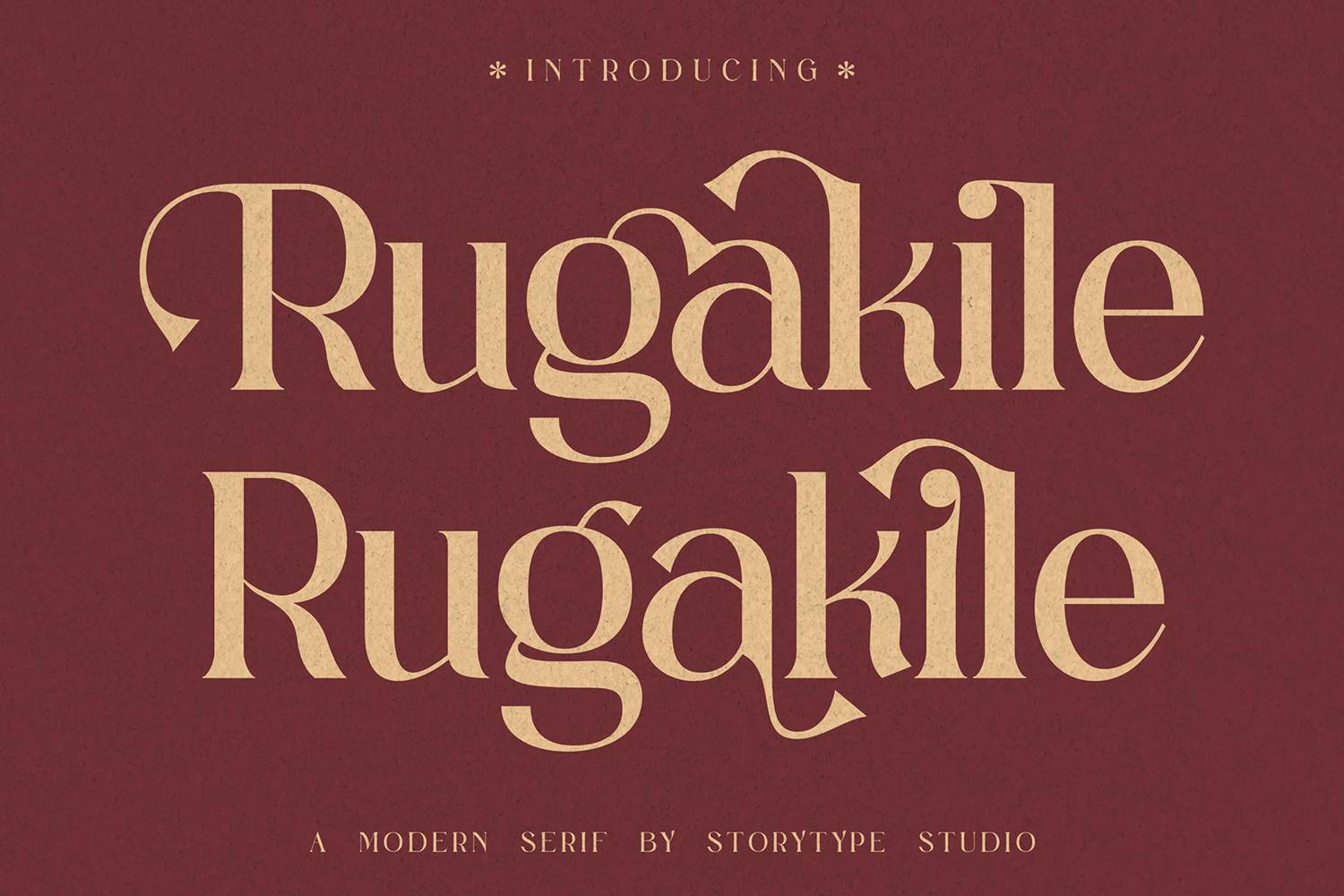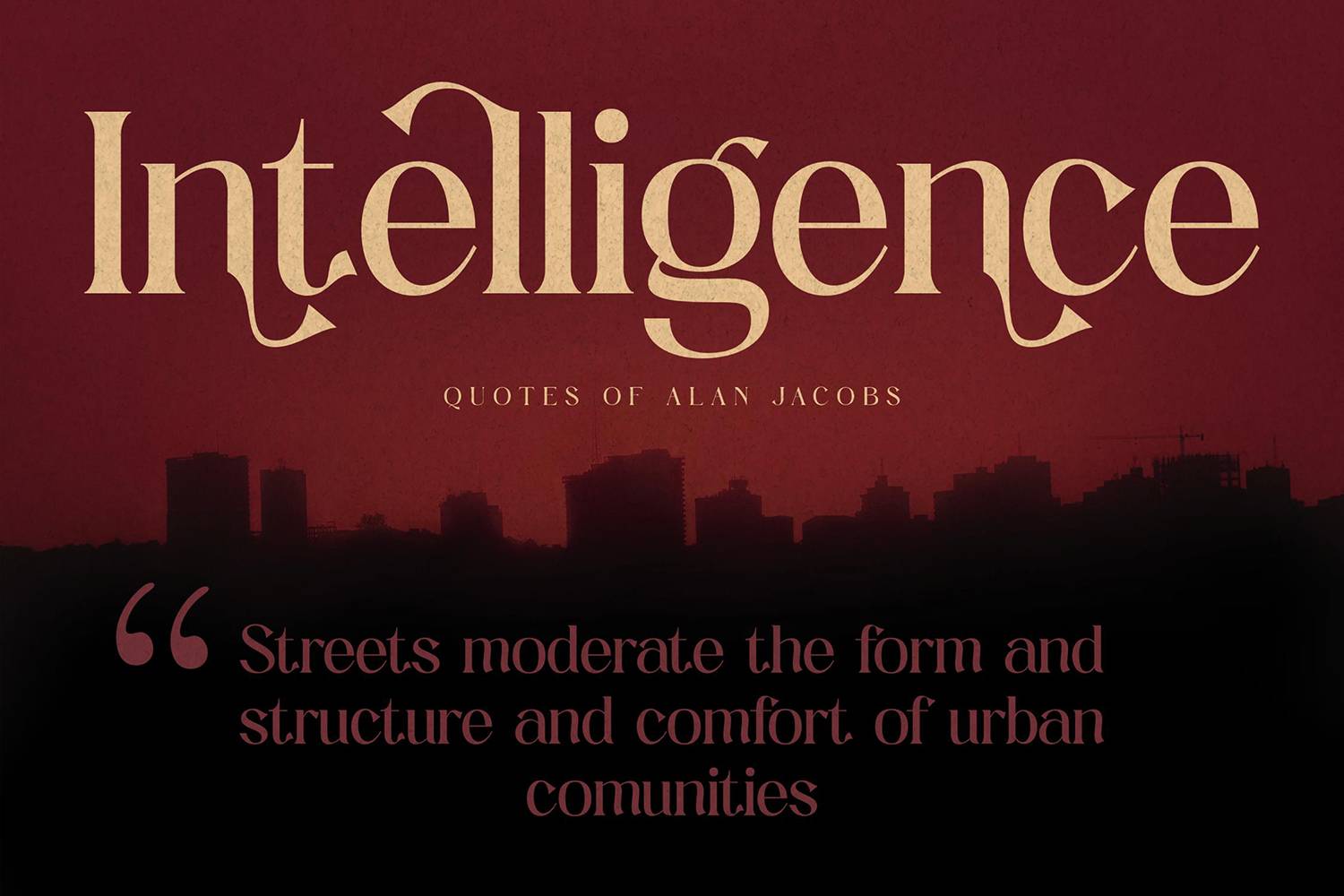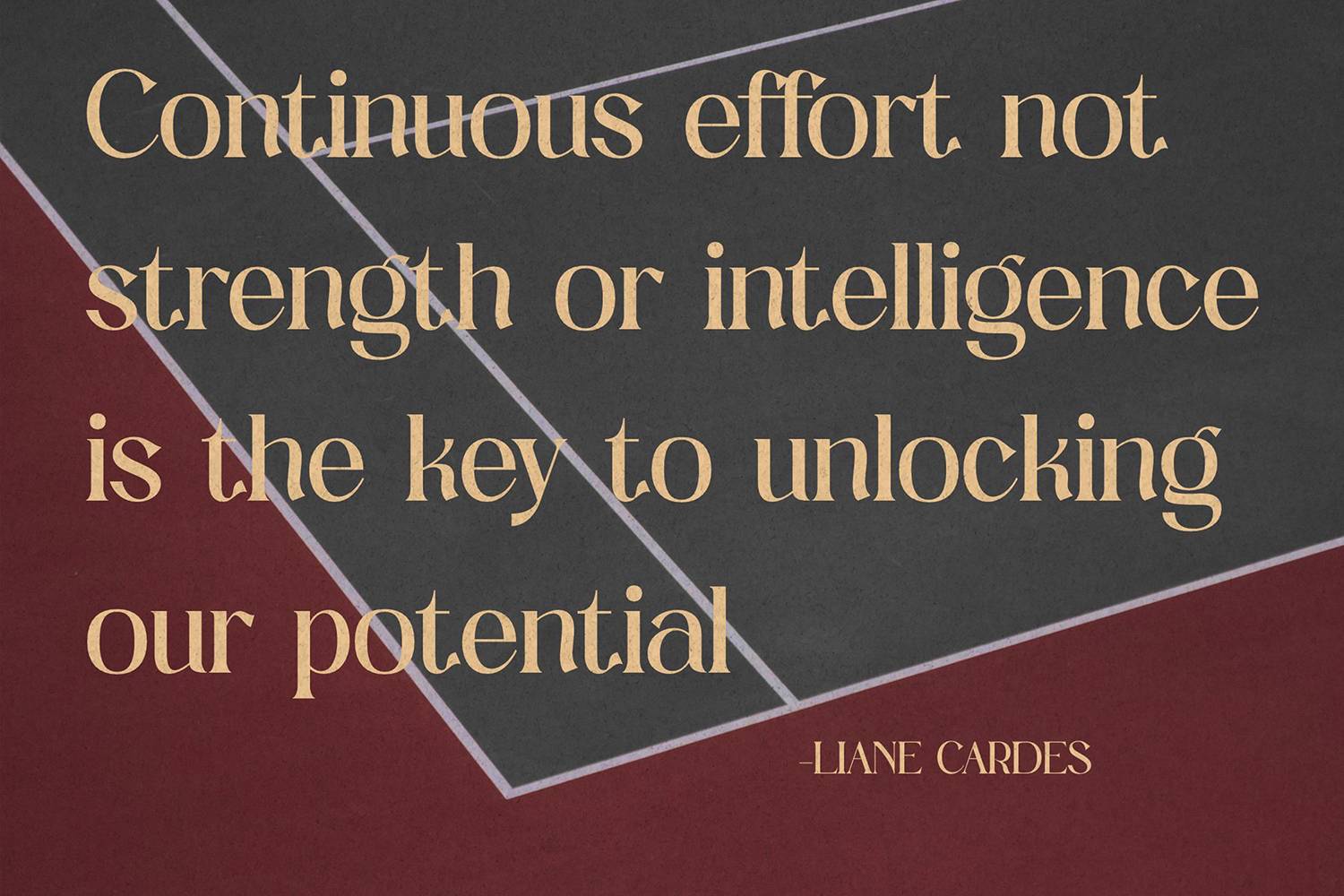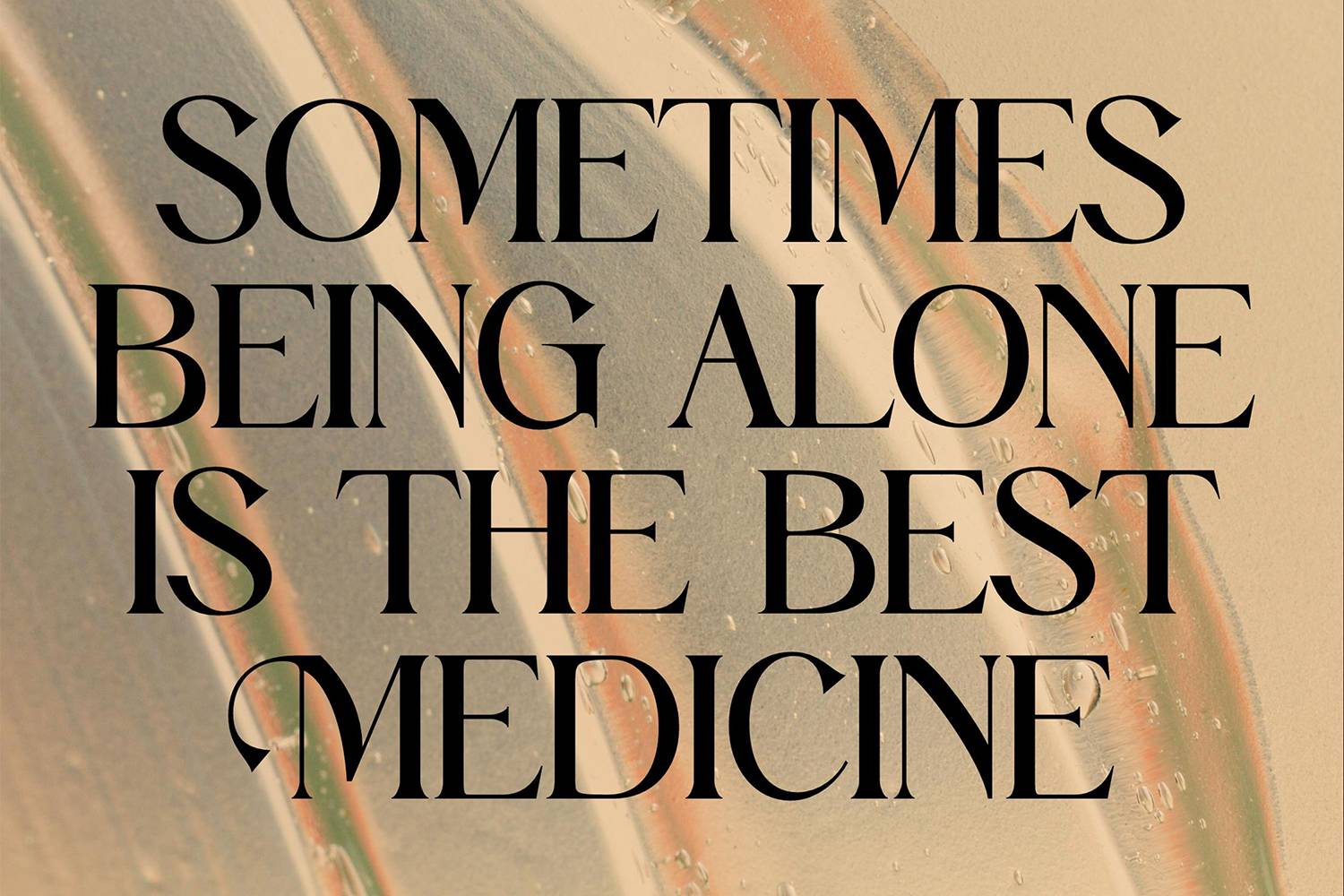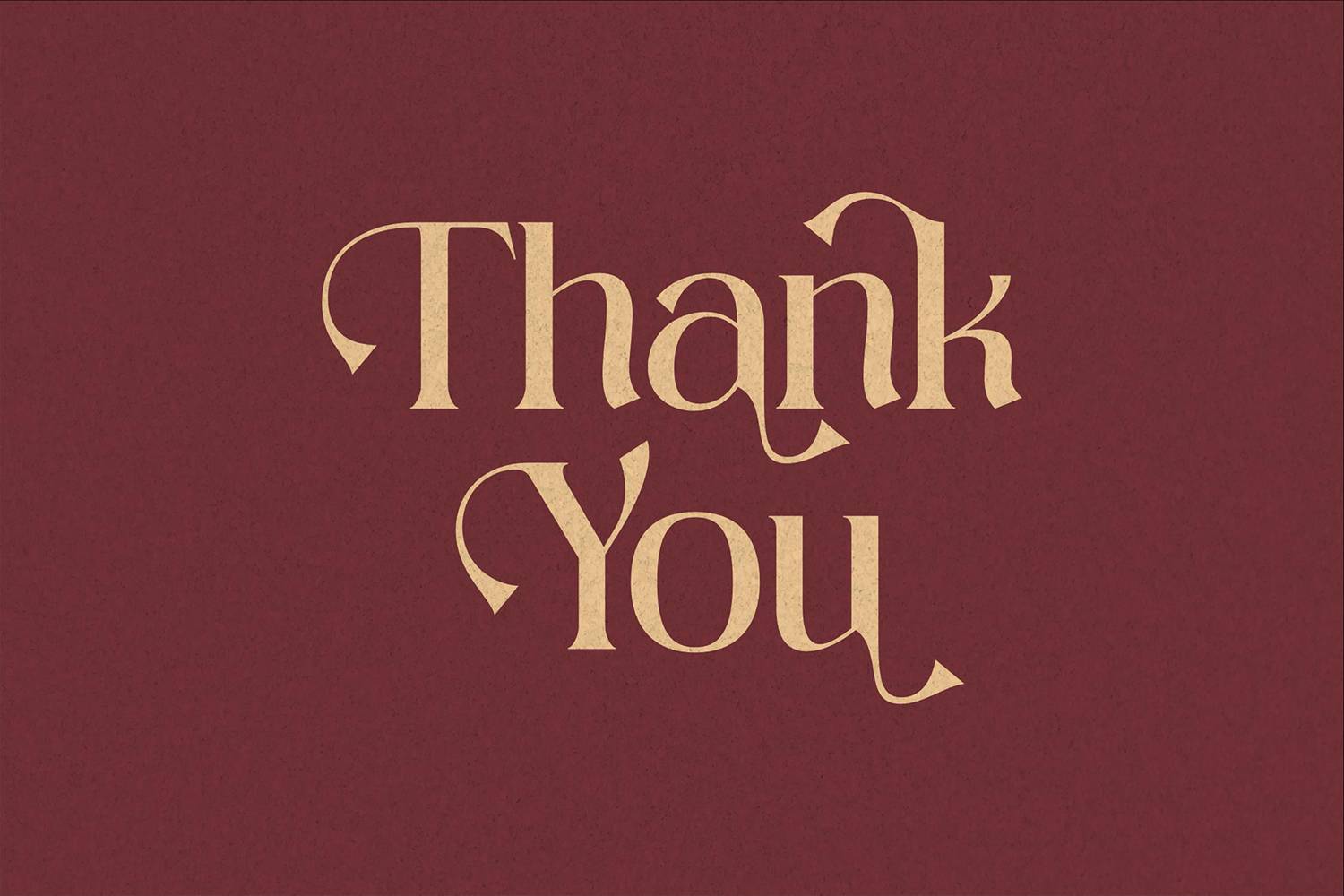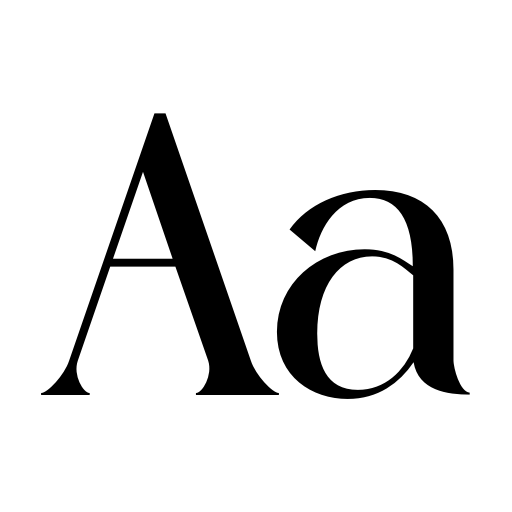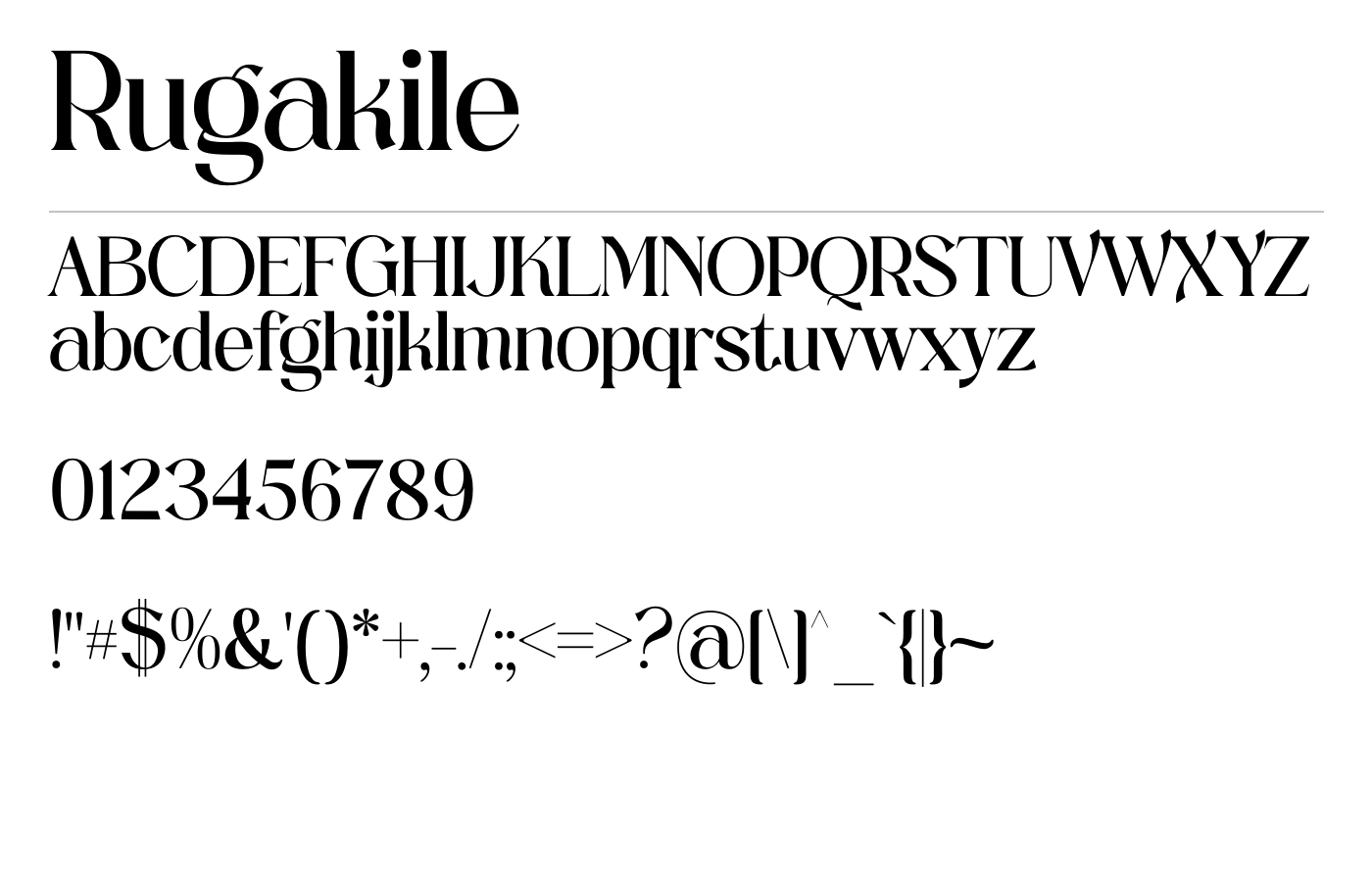
Rugakile is a refined serif font with a modern flair, featuring high contrast between thick and thin strokes and elegant, sharp serifs. Its narrow, tall letterforms and distinctive details like the curved tail of the 'Q' and unique ampersand give it a sophisticated and stylish look, making it ideal for luxury branding, editorial headlines, and fashion packaging. This font combines classic elegance with contemporary design, perfect for conveying a polished and upscale tone.
Rugakile Font